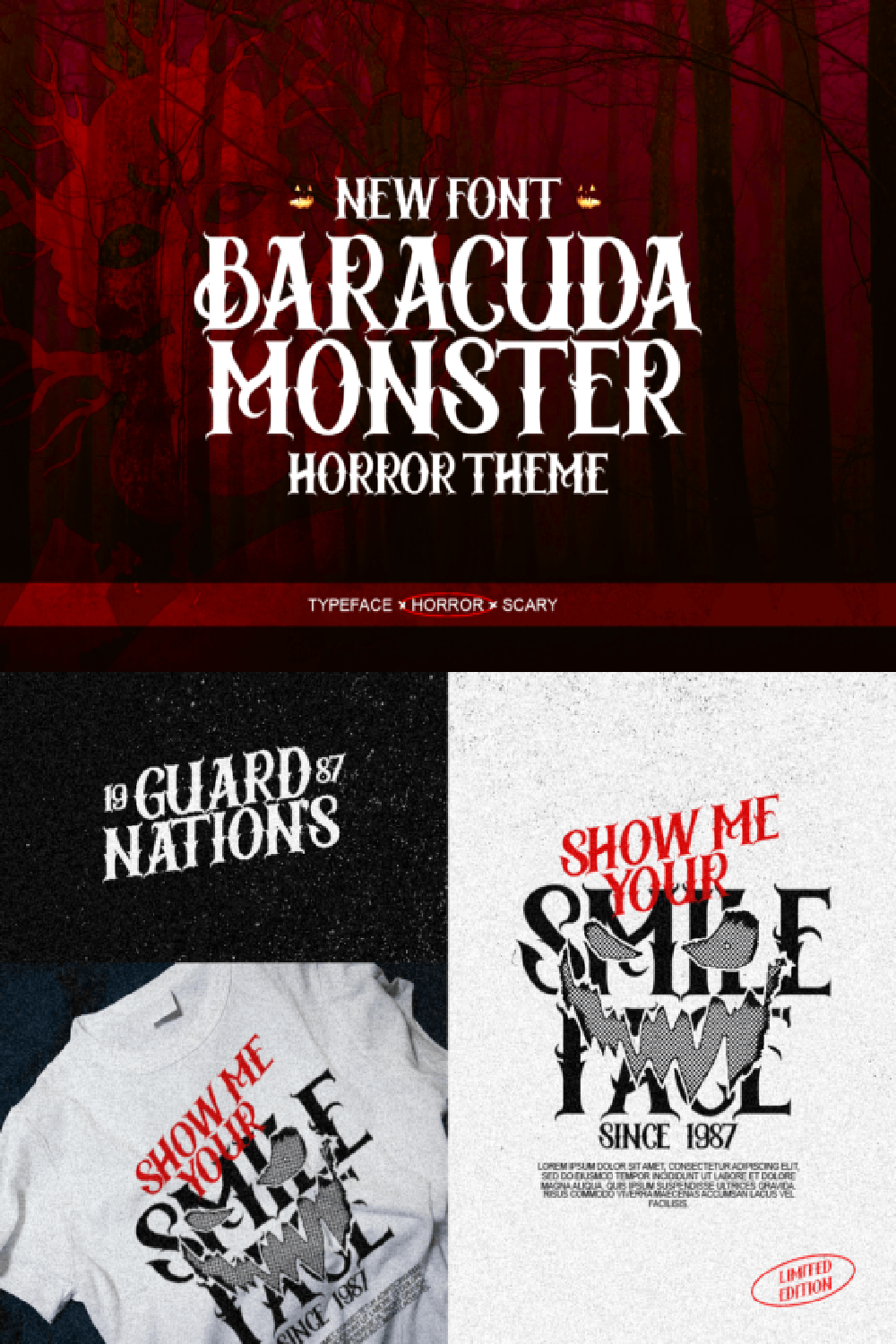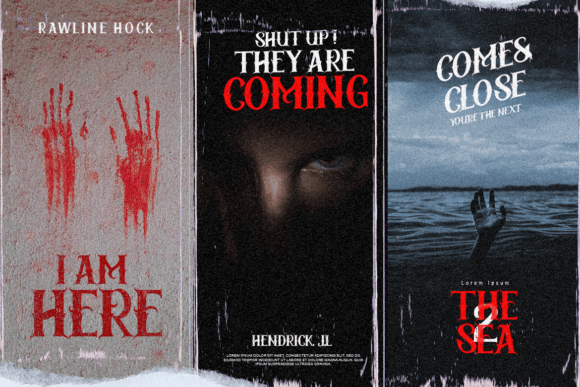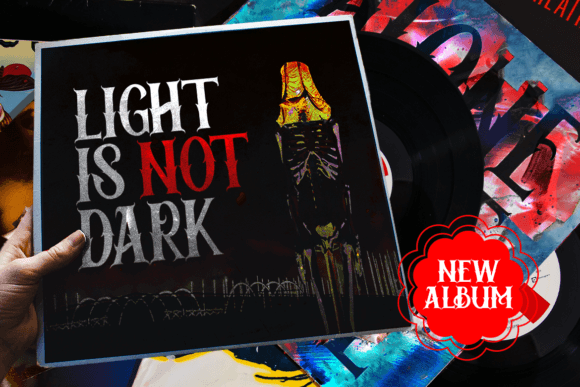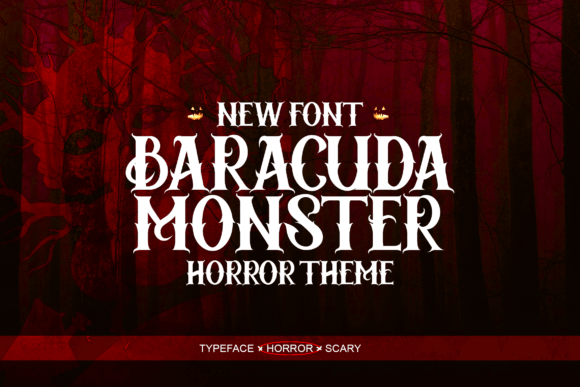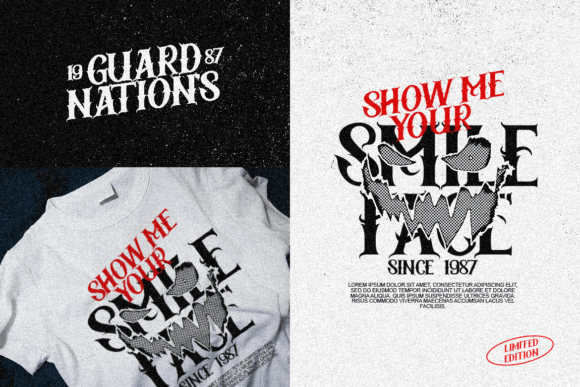
Baracuda Monster Font
About the Baracuda Monster Font
Step up your design game with Baracuda Monster Font, a font that exudes confidence and style. Baracuda Monster is a Halloween-style horror font that can also be used to embellish a gothic design. This font is intended for horror films but can also be used for various projects that need a scary and creepy vibe. This font is PUA encoded, which means you can access all of the glyphs and swashes with ease!